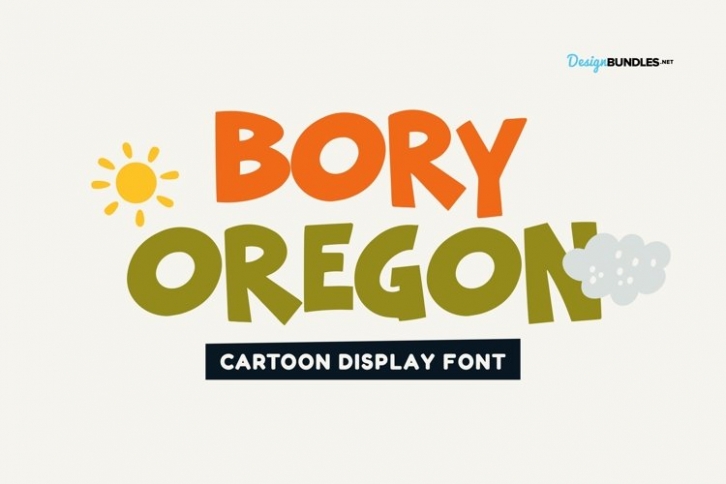
Bory Oregon is a trendy and unique font with an authentic style. It was designed by plusstore and it's a great choice for creative people who need such a font. It was released on October 23, 2022 and the file size is 19.99 MB. Bory Oregon will add an organic vibe to any design idea!